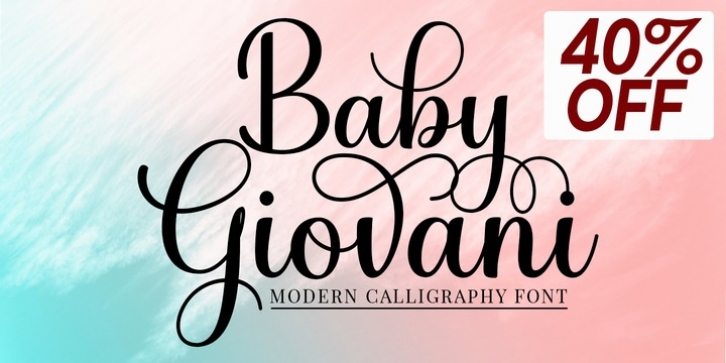
Baby Giovani Script was designed by Miftahul Jannah and published by Mytha Studio. Baby Giovani Script contains 2 styles and family package options. The font is currently #21 in Hot New Fonts.
Introducing may latest font Baby Giovani Script, featuring a modern, trendy, natural calligraphy style. I hope you are interested in this font, if you want to use for your work this font can be used easily and simply because there are a lot of features in it to contain a complete set of letters lower and uppercase letters, assorted punctuation, numbers, and multilingual support. It also contains several ligatures and alternate style Stylistic Sets for those of you who have software that is able to utilize OpenType (Photoshop / Illustrator / InDesign).